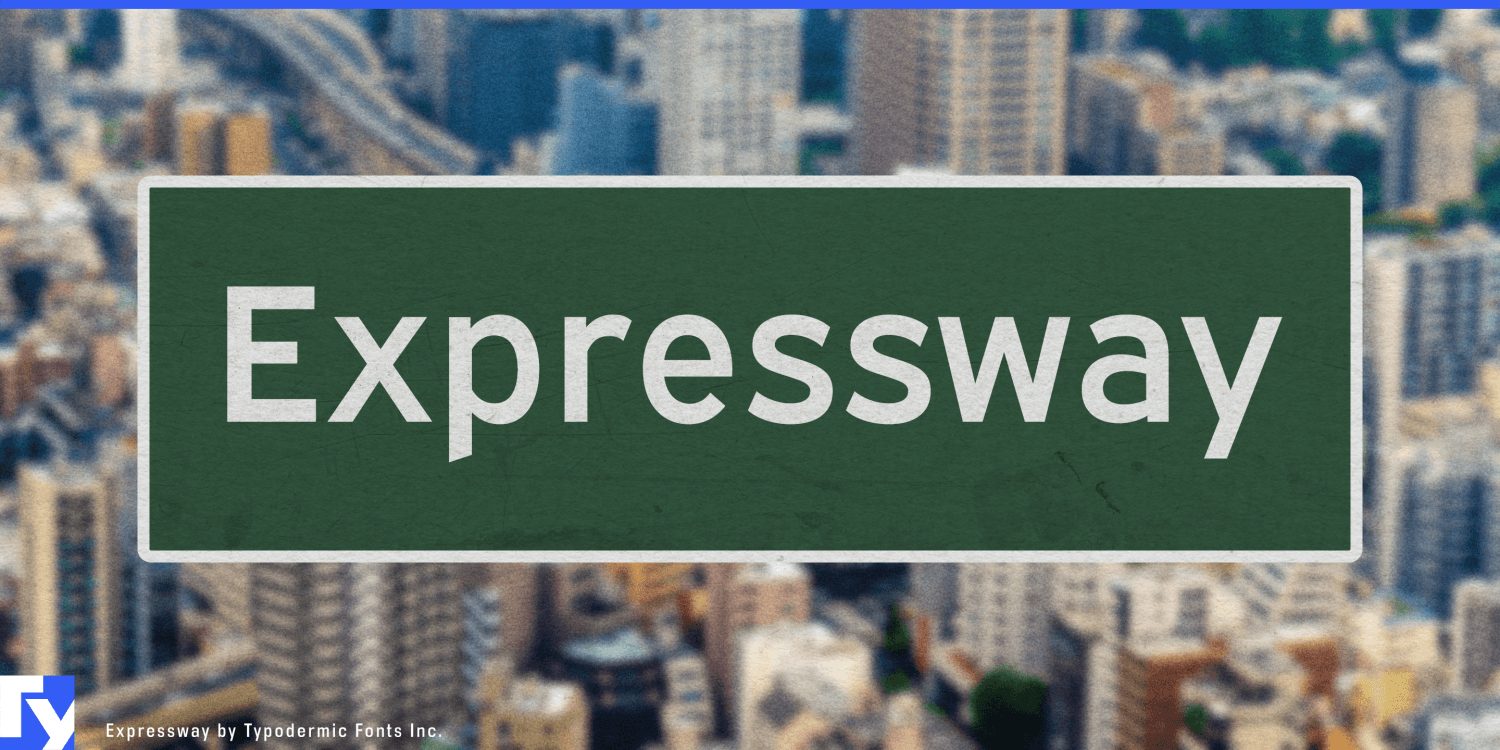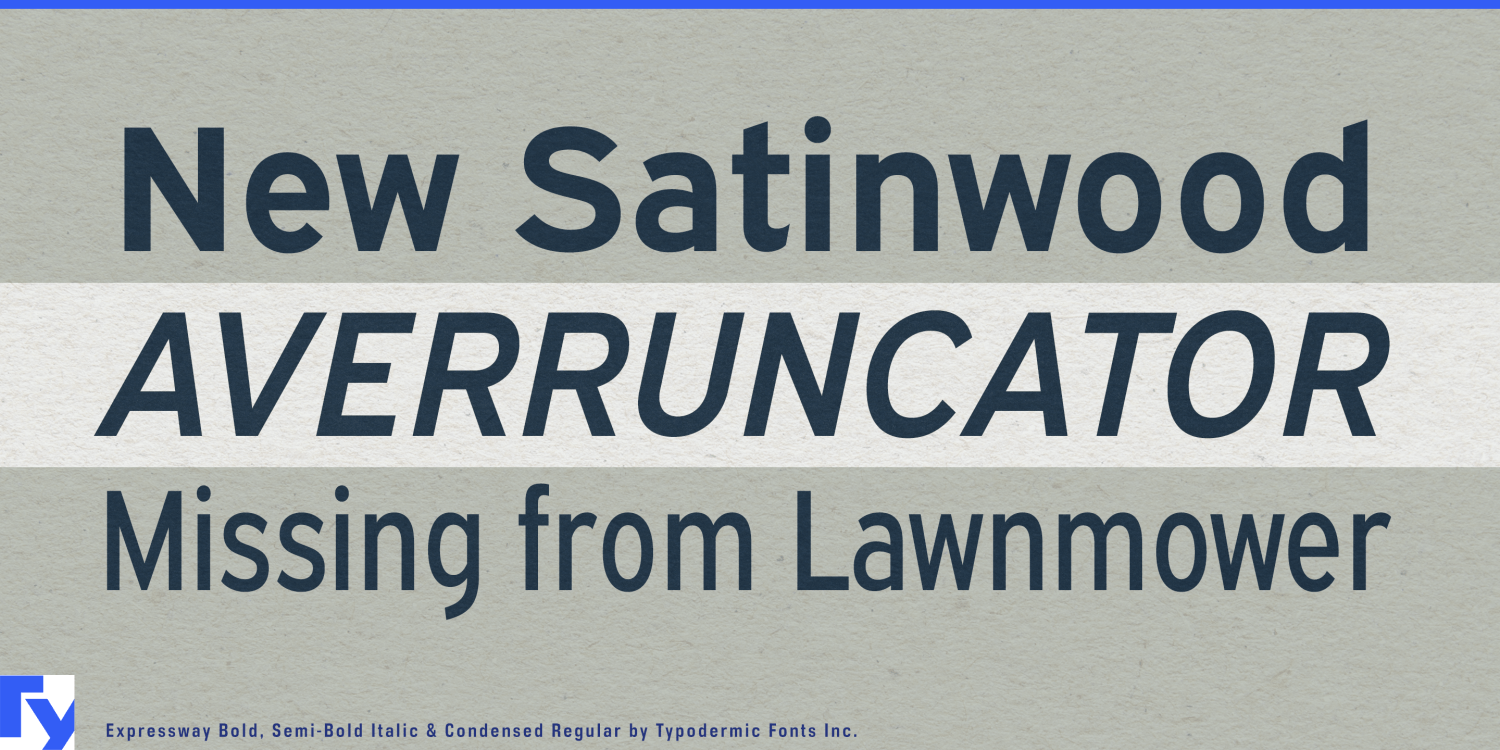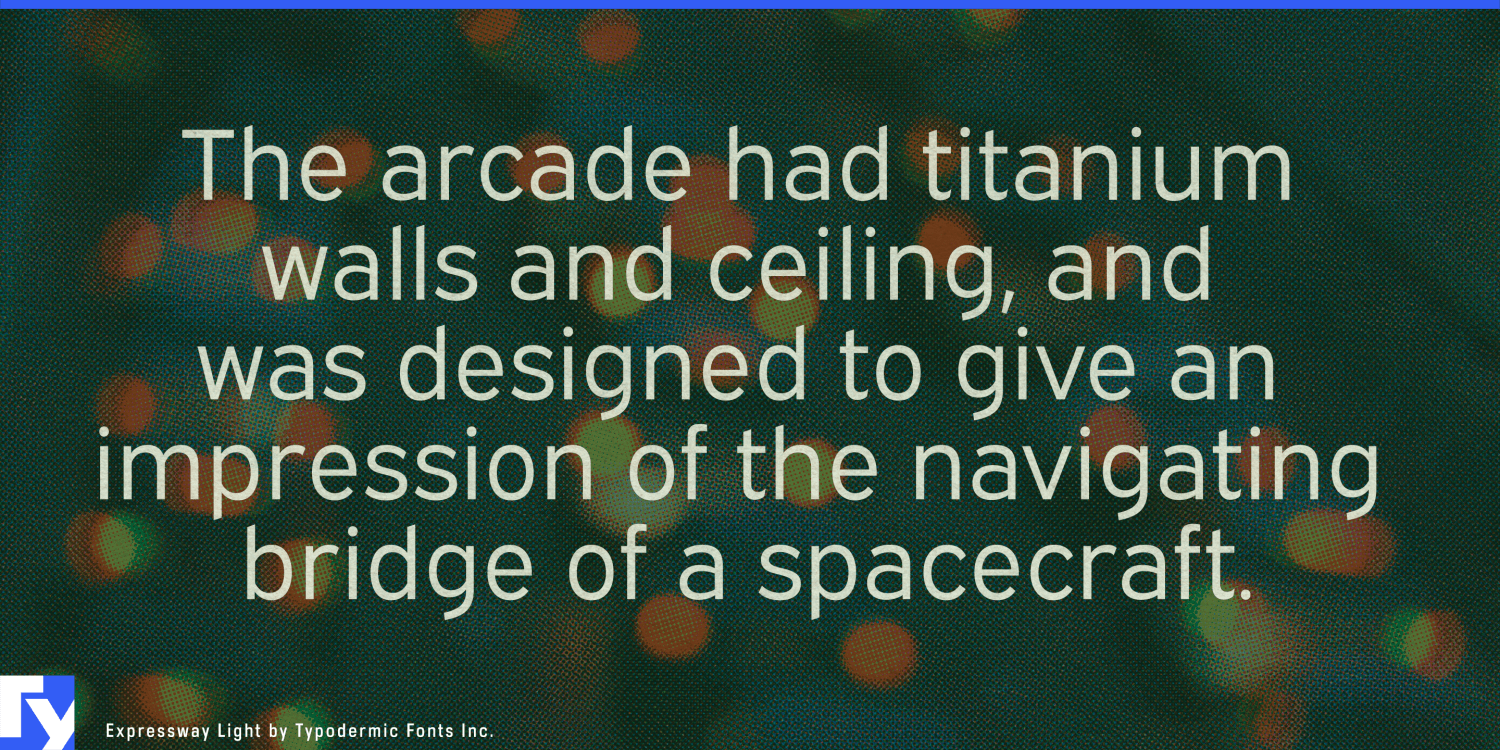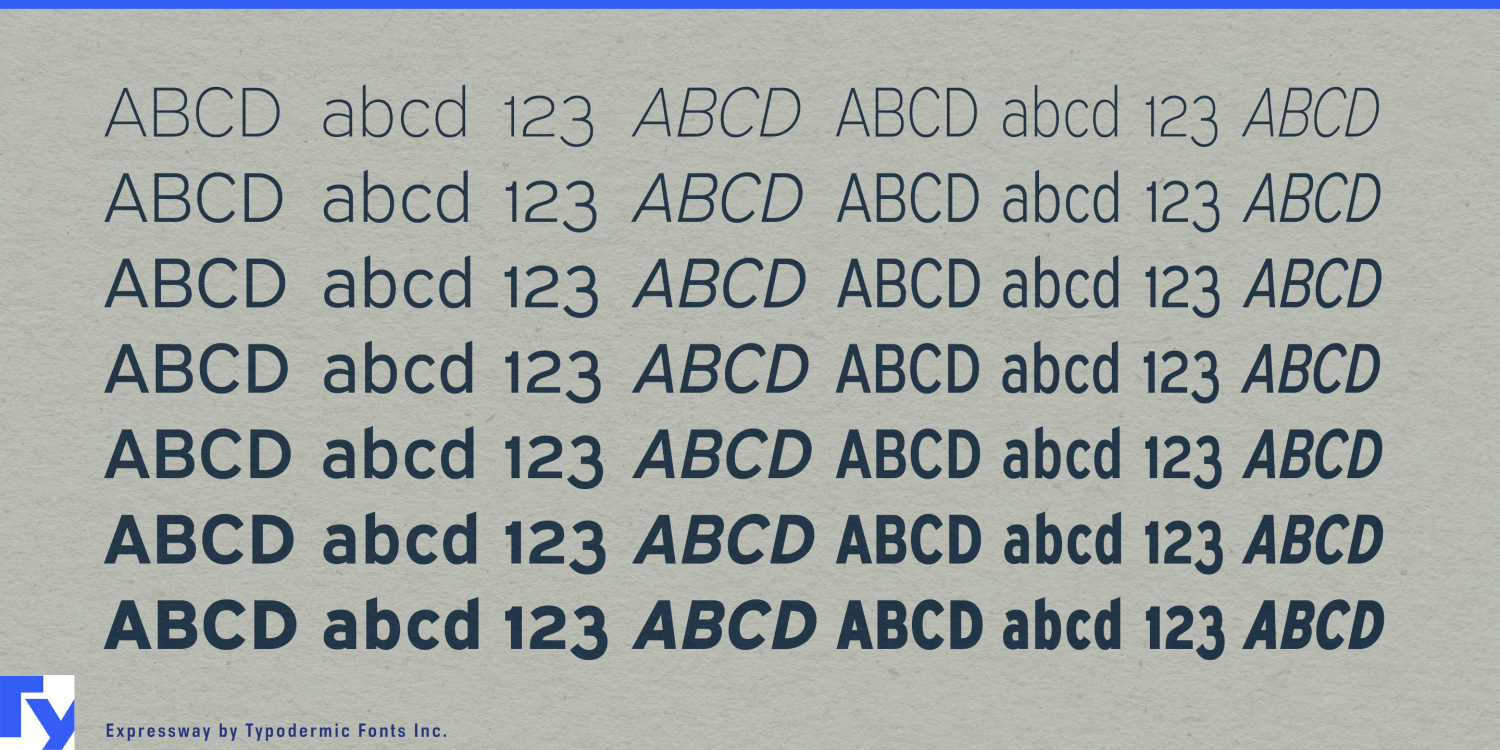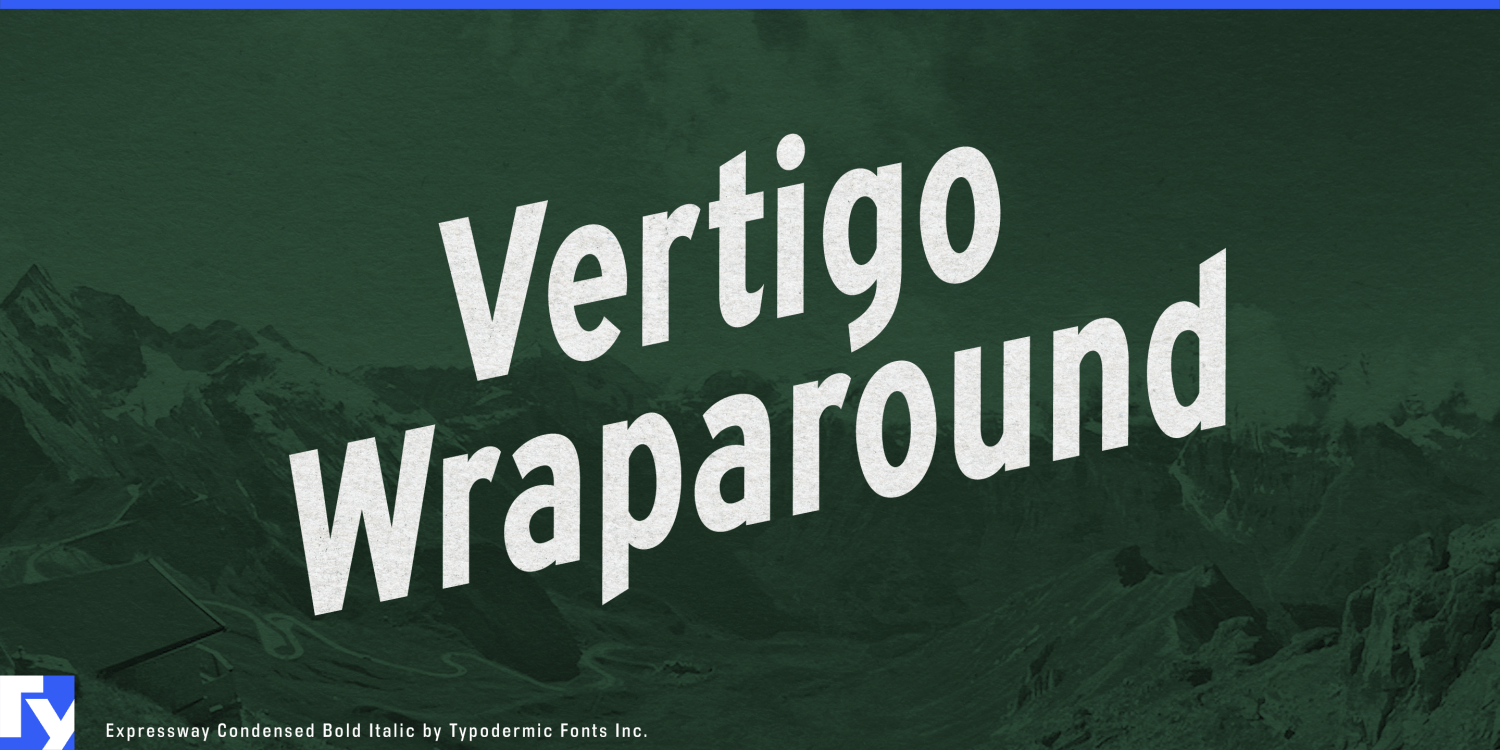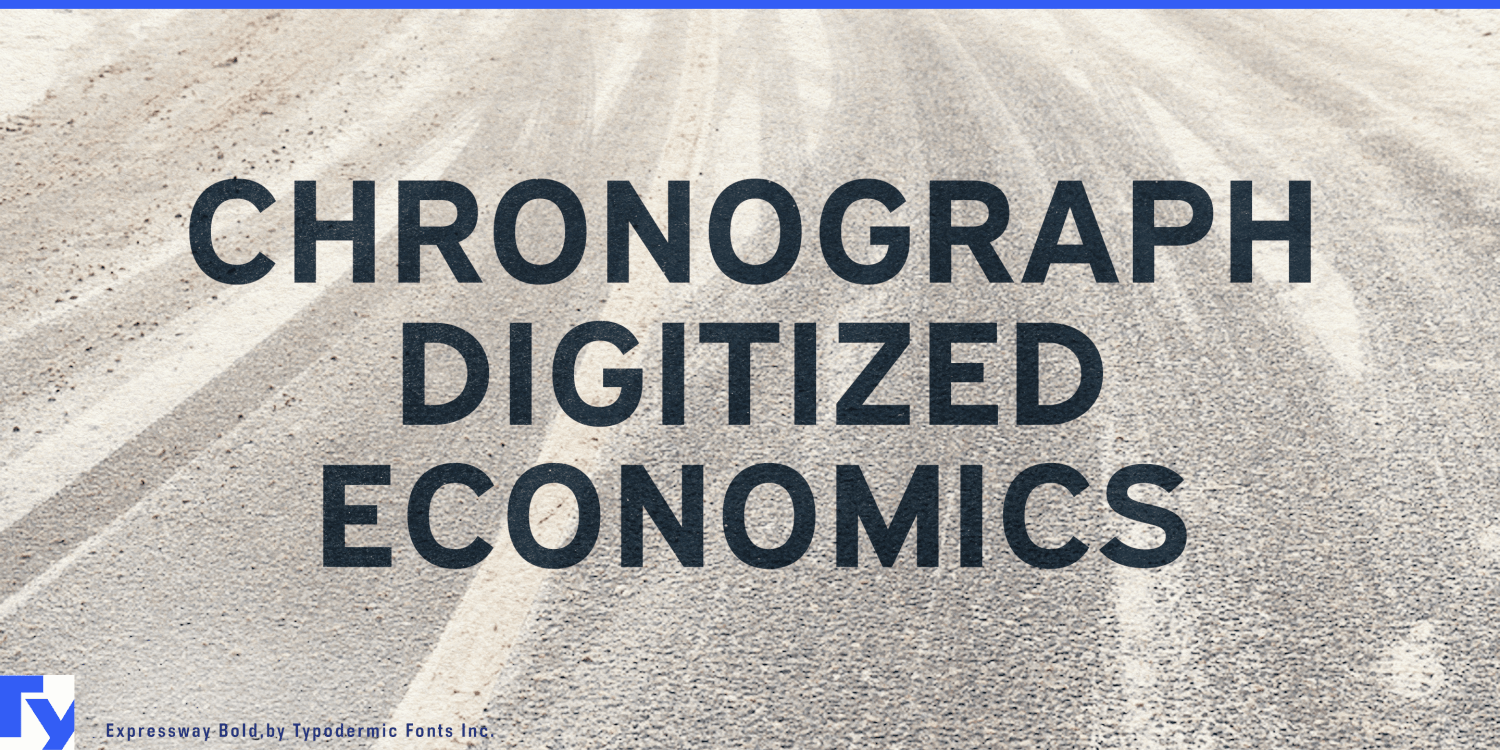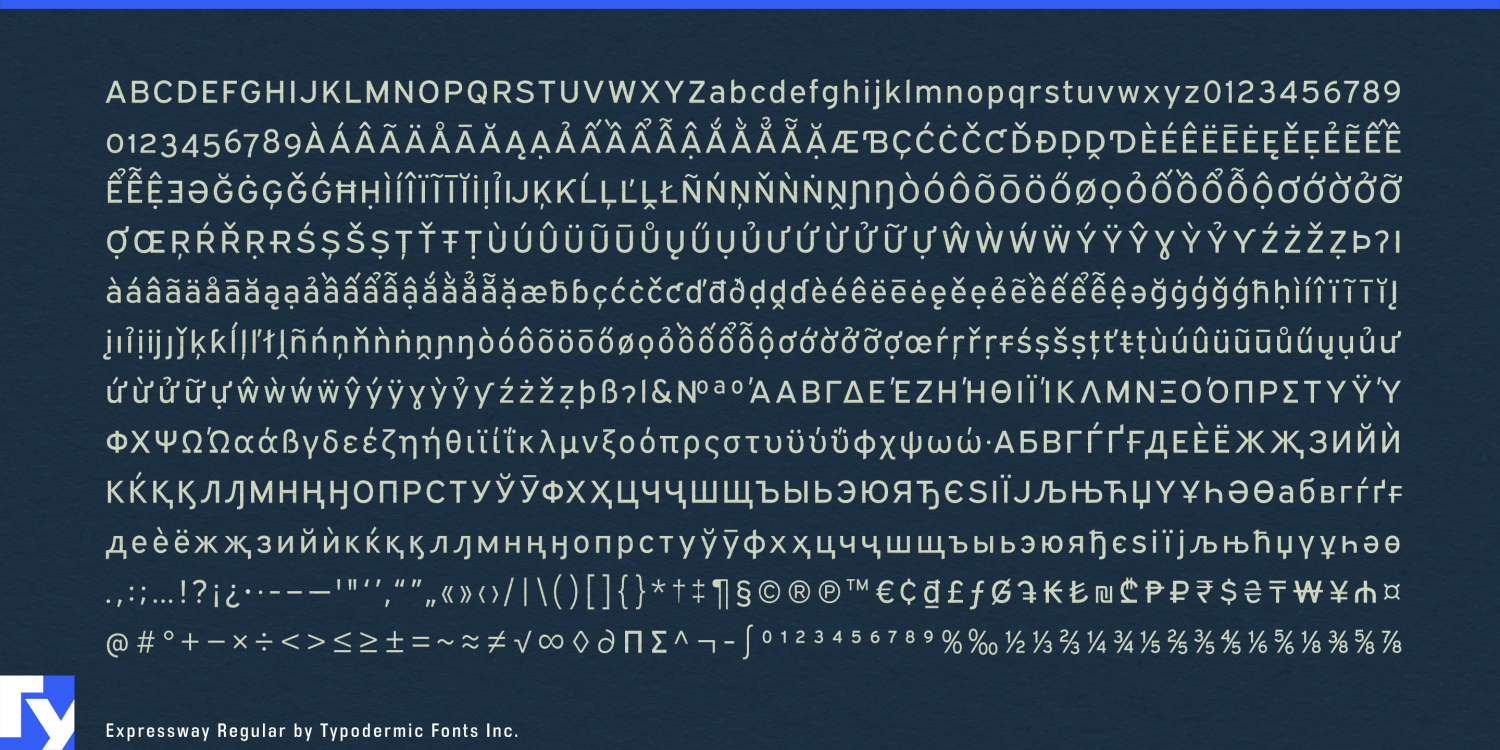
Expressway
Buy NowCruise into a world of precision and familiarity with Expressway, a sans-serif typeface that channels the unmistakable spirit of Highway Gothic. This is a journey through typographic history, reimagined for modern design landscapes.
Expressway’s DNA is rooted in the FHWA Series of Standard Alphabets, the visual language that’s guided travelers across continents since the mid-20th century. It captures the essence of road sign typography: clear, authoritative, and instantly recognizable. But Expressway doesn’t just replicate—it elevates. With an impressive arsenal of 28 styles, including seven weights, two widths, and italics, Expressway offers unparalleled versatility. Whether you’re designing for expansive billboards or intricate user interfaces, this typeface family has the range to meet your needs.
Expressway’s practical prowess shines in its numerical offerings. Old-style lowercase numerals bring a touch of sophistication, while monospaced tabular numerals ensure precise alignment in financial documents and data-heavy designs. Currency symbols, mathematical operators, and fractions—all meticulously crafted and monospaced—make complex information crystal clear. But Expressway’s journey doesn’t end at the edge of the English-speaking world. Its extensive character set spans Latin-based European languages, Vietnamese, Greek, and most Cyrillic-based writing systems. From the autobahns of Germany to the expressways of Vietnam, this typeface speaks the universal language of clear communication.
Expressway isn’t just about functionality—it’s about feeling. Its warm, inviting style carries the nostalgia of road trips past while pointing confidently toward the future. It’s equally at home guiding users through a sleek tech interface or gracing the pages of an engineering manual. For designers who understand that true innovation often comes from refining the classics, Expressway is more than a typeface—it’s a destination. It’s for projects that demand the perfect balance of authority and approachability, of tradition and progress.
So, when your design needs to communicate with the clarity of a well-placed road sign and the warmth of a familiar journey, turn to Expressway. It’s not just about getting from A to B—it’s about enjoying every letter of the ride.